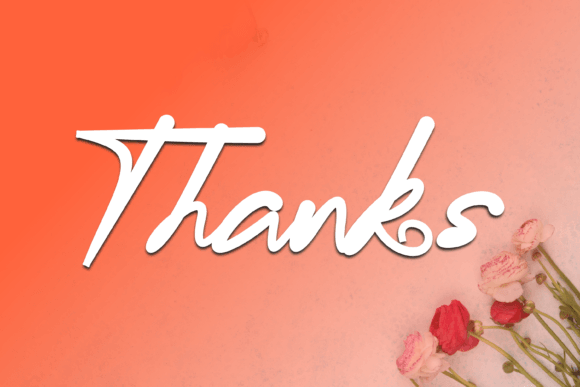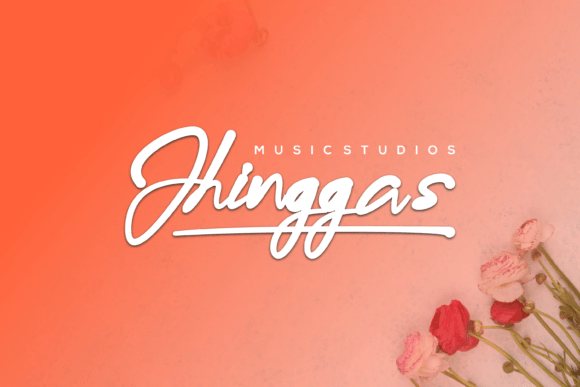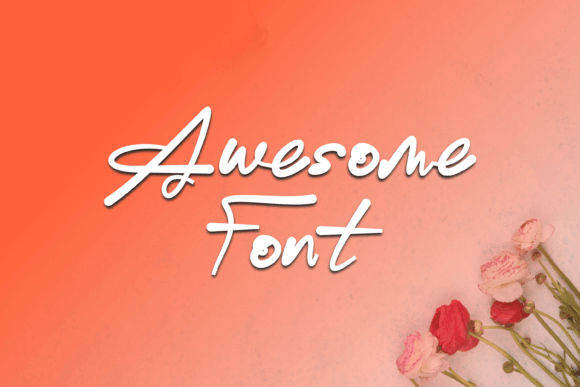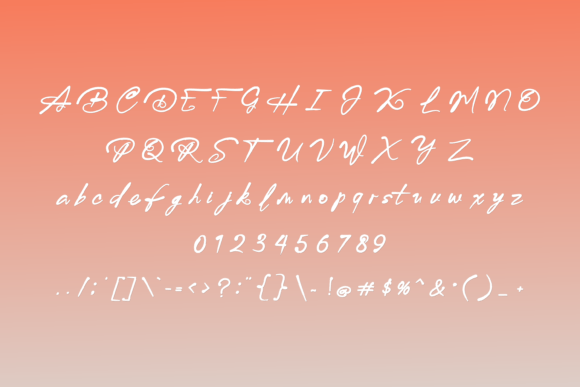
Introduction to Hilltams Font
As a designer, have you ever found yourself stuck on a creative project, desperate for the perfect font to bring your vision to life? You scroll through your design resources, searching for that one special typeface that captures the essence of your message. And then, it happens – you stumble upon a font that’s so charming, so authentic, that it makes your text come alive. For many designers, that font is Hilltams Font, a beautiful handwritten typeface with a relaxed, cursive style that’s perfect for adding a touch of personality to your designs.
With its high-quality design and transparent background, Hilltams Font is a valuable resource for any designer looking to elevate their creative projects. Whether you’re working on a branding project, a wedding invitation, or a social media campaign, this font is sure to make your text stand out. And the best part? It’s available for free download, making it an accessible and affordable addition to your design toolkit.
Key Features of Hilltams Font
- Transparent background and versatile design suitable for a wide range of applications
- Unique characteristics include a modern, clean aesthetic and a wide range of font styles
- Perfect for use in digital design, including logos, graphics, and web design
Honest Review: Hilltams Font
As a designer, I’m always on the lookout for high-quality design resources that can elevate my creative projects. Recently, I stumbled upon the Hilltams Font, and I’m excited to share my honest review with you.
What works well: ✨ The Hilltams Font offers a unique and elegant design style that’s perfect for a variety of creative projects. The font is available for free download, making it an excellent addition to any design library. I appreciate the transparent background, which allows for easy use in both digital and print designs.
What doesn’t work well: ⚠️ While the font is high-quality, it’s not suitable for every design project. The Hilltams Font is best used for projects that require a touch of sophistication and elegance. Additionally, the font may not be as versatile as some other design resources, so be sure to check compatibility before using it.
- Unique and elegant design style
Overall, I’m impressed with the Hilltams Font and would recommend it to designers who are looking for a high-quality design resource to add to their creative projects.
Common Use Cases for Hilltams Font
Hilltams Font is ideal for a variety of creative projects, including logos, branding materials, and marketing materials. Its high-quality design and transparent background make it a versatile and effective design resource.